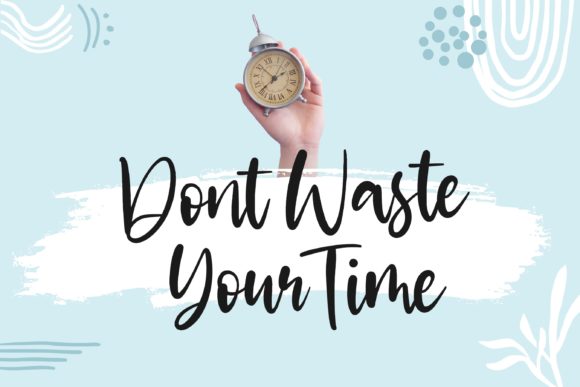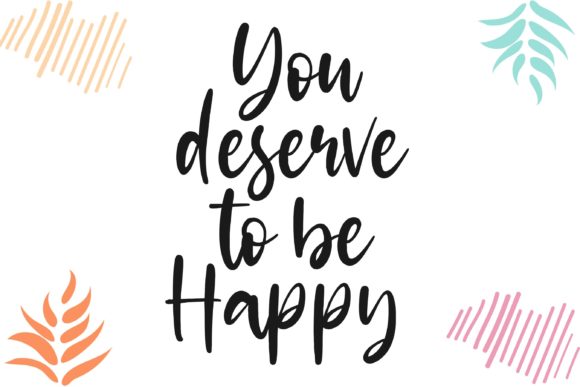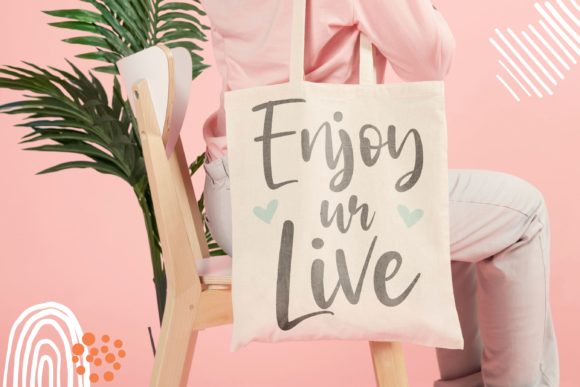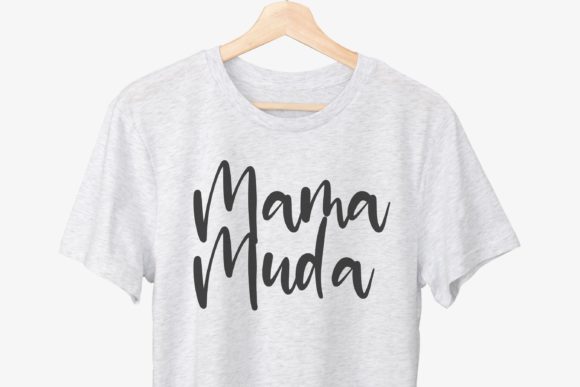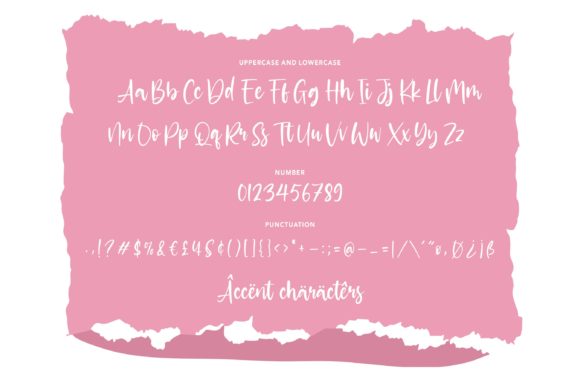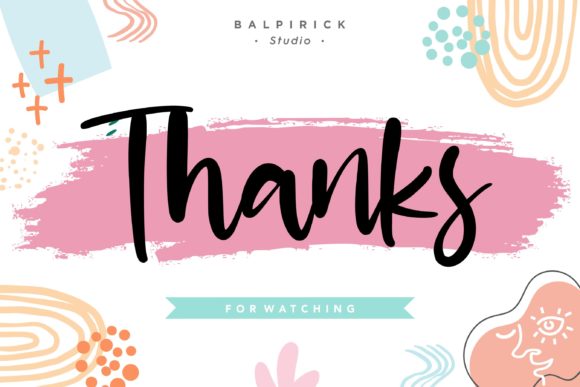
Introducing Glittery Font: Elevate Your Designs with Elegance and Sparkle
Are you a designer, crafter, or DIY enthusiast looking for a font that can add a touch of elegance and sophistication to your projects? Look no further than Glittery Font, a truly outstanding handwritten font that simplifies elegance into one stunning script. With Glittery, you can transform any creative idea into a true piece of art, perfect for Instagram posts, calligraphy scripts, and a wide range of DIY projects.
The Perfect Blend of Elegance and Sparkle
Glittery Font is designed to bring a touch of glamour and sophistication to your designs. Its unique, handwritten script is characterized by flowing lines, delicate curves, and a dash of sparkle that sets it apart from other fonts. Whether you’re creating social media graphics, invitations, or craft projects, Glittery Font is the perfect choice for anyone looking to add a touch of elegance and refinement to their work.
One of the best things about Glittery Font is its versatility. This amazing font can be used for a wide range of creative projects, including:
- Instagram Graphics: Add a touch of glamour to your Instagram posts and stories with Glittery Font. Perfect for quotes, motivational messages, or simply to add some sparkle to your feed.
- Calligraphy Scripts: Use Glittery Font to create beautiful calligraphy scripts for special occasions, such as weddings, birthdays, or anniversaries.
- DIY Projects: From crafting and scrapbooking to home decor and woodworking, Glittery Font is the perfect addition to any DIY project.
- Stationery and Invitations: Create stunning stationery, invitations, and greeting cards with Glittery Font.
Why Choose Glittery Font?
So, what sets Glittery Font apart from other fonts? Here are just a few reasons why designers and crafters love Glittery:
- Unique and Eye-Catching: Glittery Font is a truly unique and eye-catching script that will make your designs stand out from the crowd.
- Elegant and Sophisticated: With its flowing lines and delicate curves, Glittery Font adds a touch of elegance and sophistication to any design.
- High-Quality: Glittery Font is a high-quality font that is designed to produce stunning results, even at large sizes.
Tips for Using Glittery Font
Here are a few tips for getting the most out of Glittery Font:
- Experiment with Colors: Glittery Font looks amazing in a wide range of colors, from metallic and glittery colors to bold and bright hues.
- Play with Sizes: Glittery Font can be used at a wide range of sizes, from small and delicate to large and bold.
- Combine with Other Fonts: Try combining Glittery Font with other fonts to create stunning contrast and visual interest.
In conclusion, Glittery Font is a truly outstanding handwritten font that simplifies elegance into one stunning script. With its unique blend of elegance and sparkle, Glittery Font is the perfect choice for designers, crafters, and DIY enthusiasts looking to add a touch of sophistication and glamour to their projects. Whether you’re creating Instagram graphics, calligraphy scripts, or DIY projects, Glittery Font is sure to turn your creative ideas into true pieces of art!